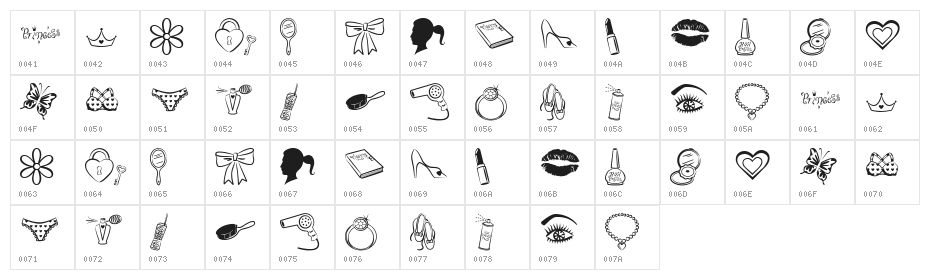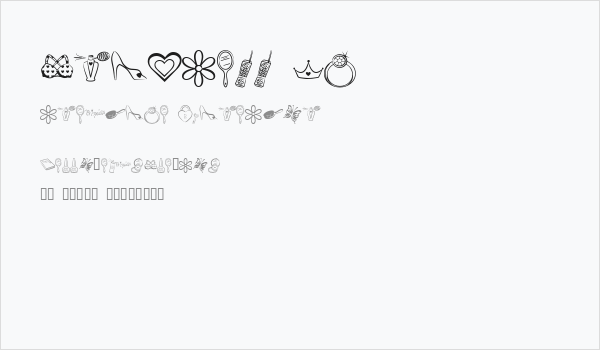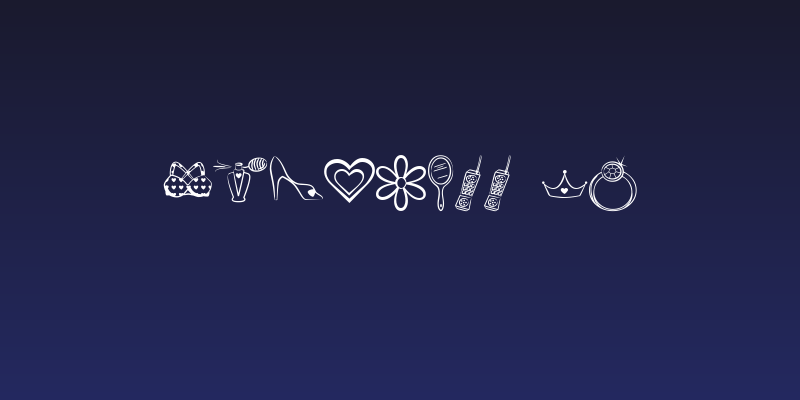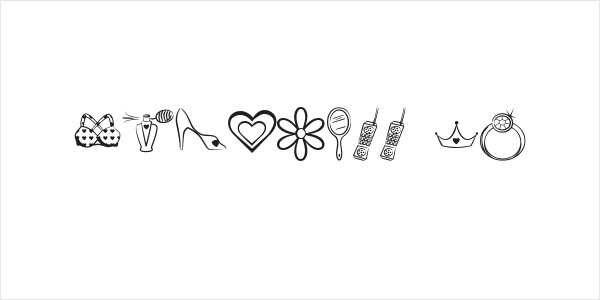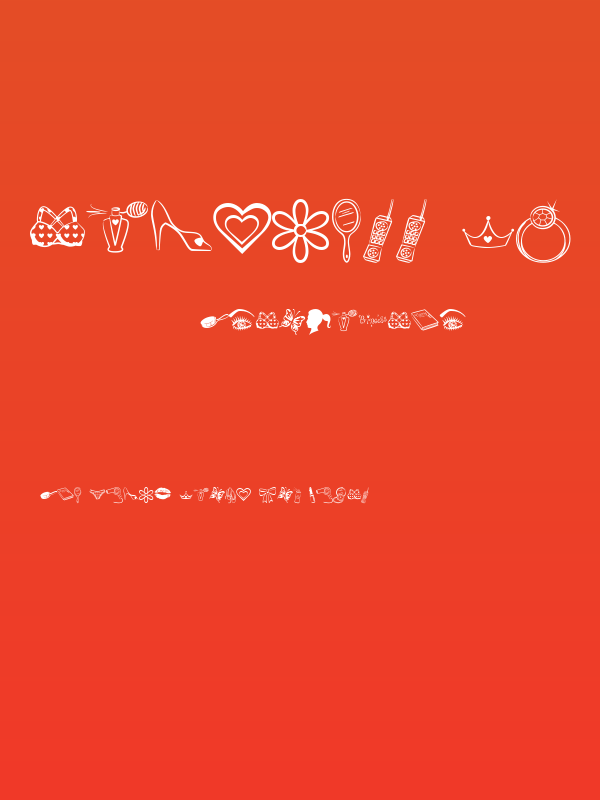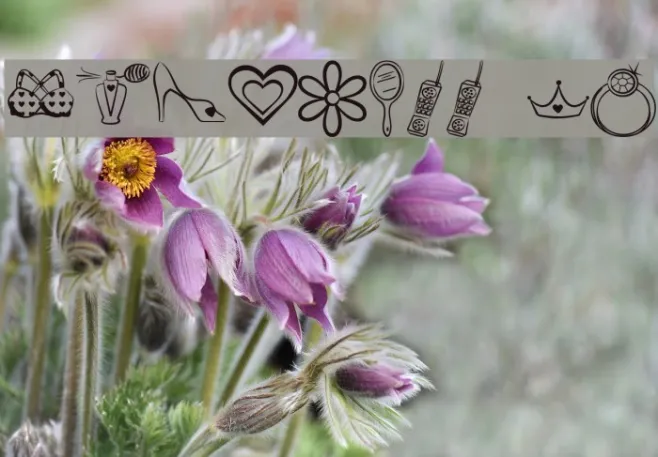
Princess BV Font
Princess BV Description
This is not a traditional font but rather a collection of decorative icons and symbols. The design features a variety of feminine-themed illustrations such as crowns, flowers, bows, silhouettes, high heels, lipstick, and more. These elements are playful and whimsical, capturing a sense of fun and elegance. The icons are detailed and varied, making them suitable for creative projects that require a touch of personality and style.
| Use Case | Decorative elements for creative projects. |
| Proposed Projects | Ideal for use in scrapbooking, greeting cards, fashion design, or any project that could benefit from a playful and stylish theme. |